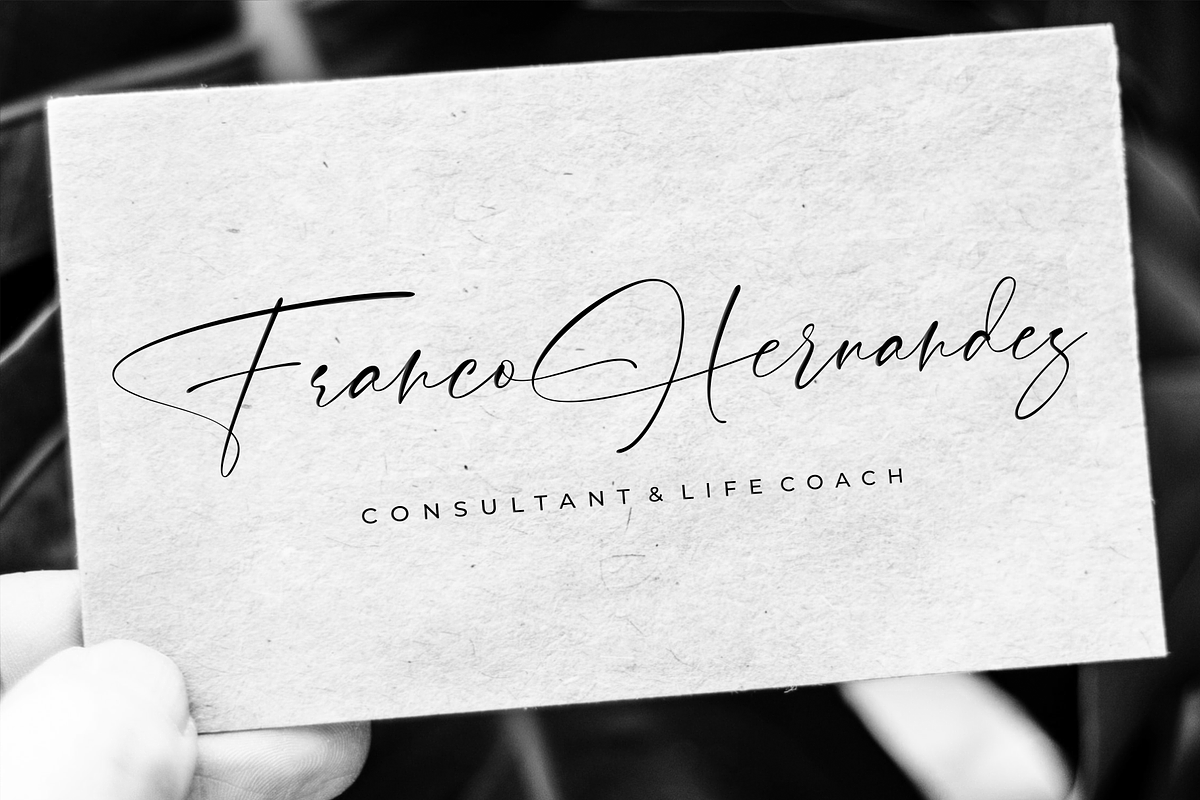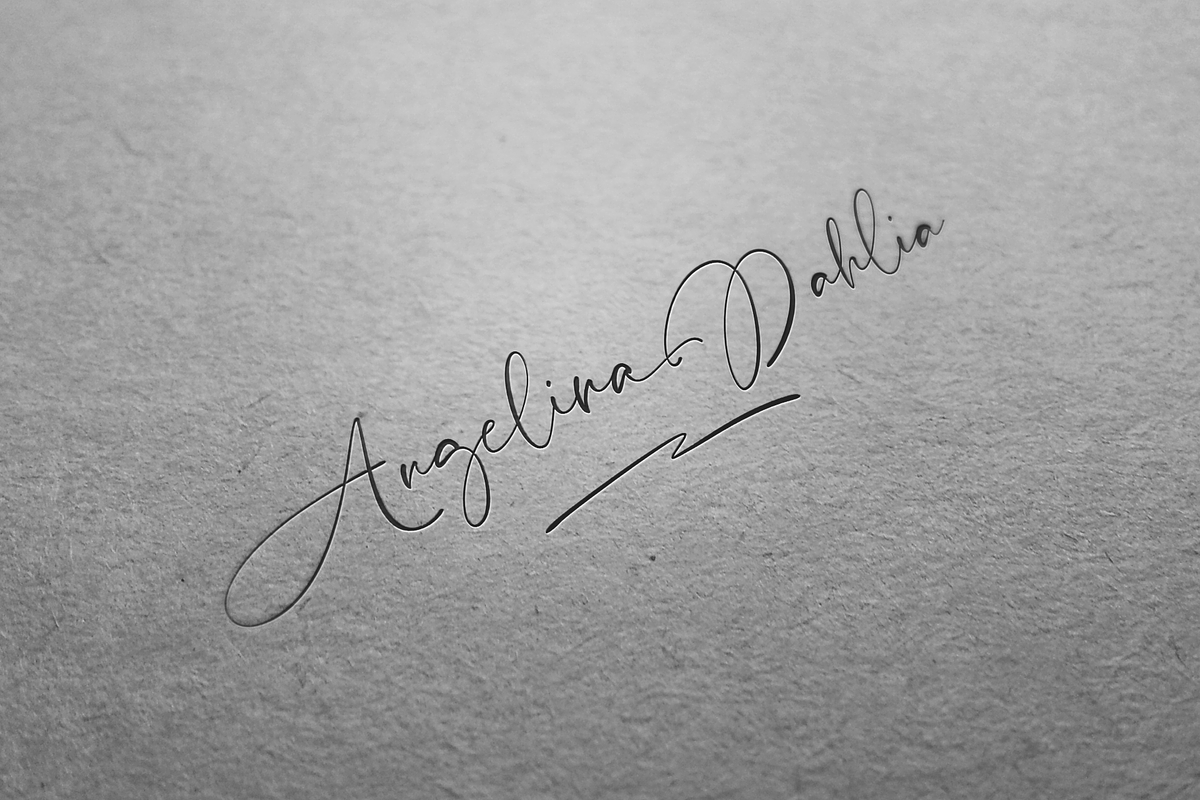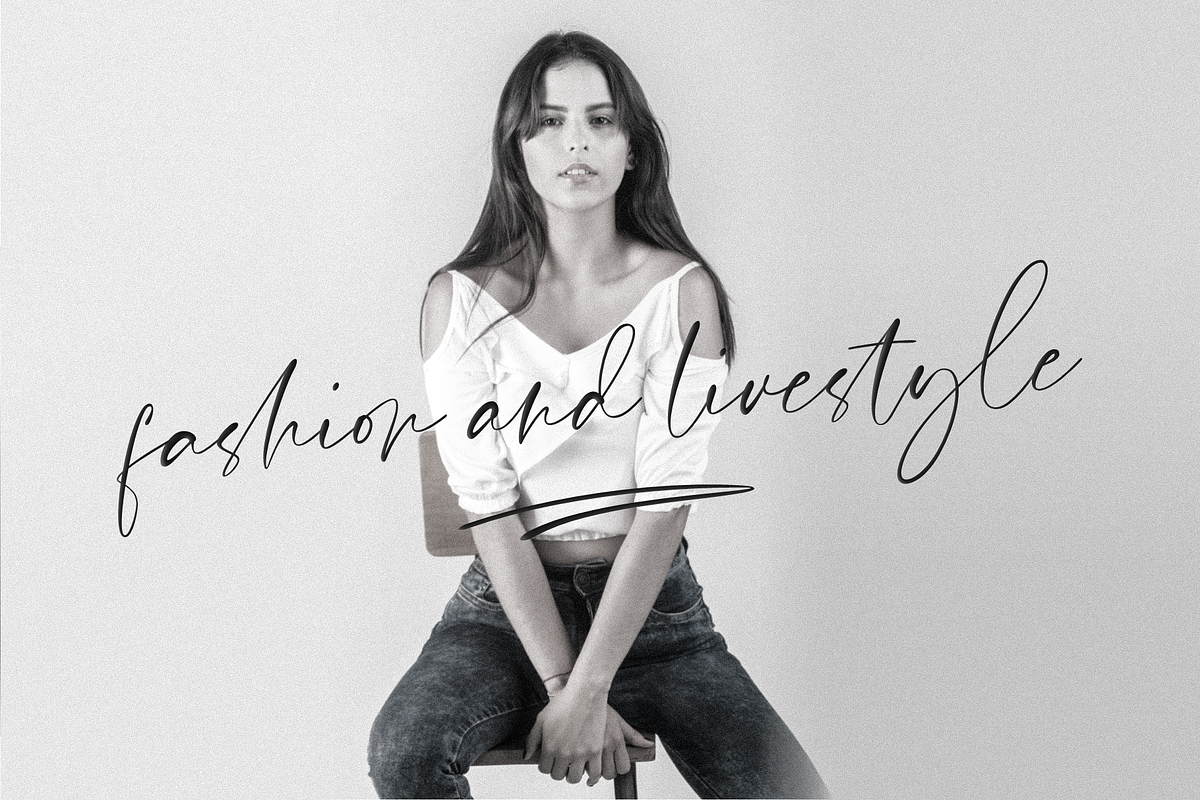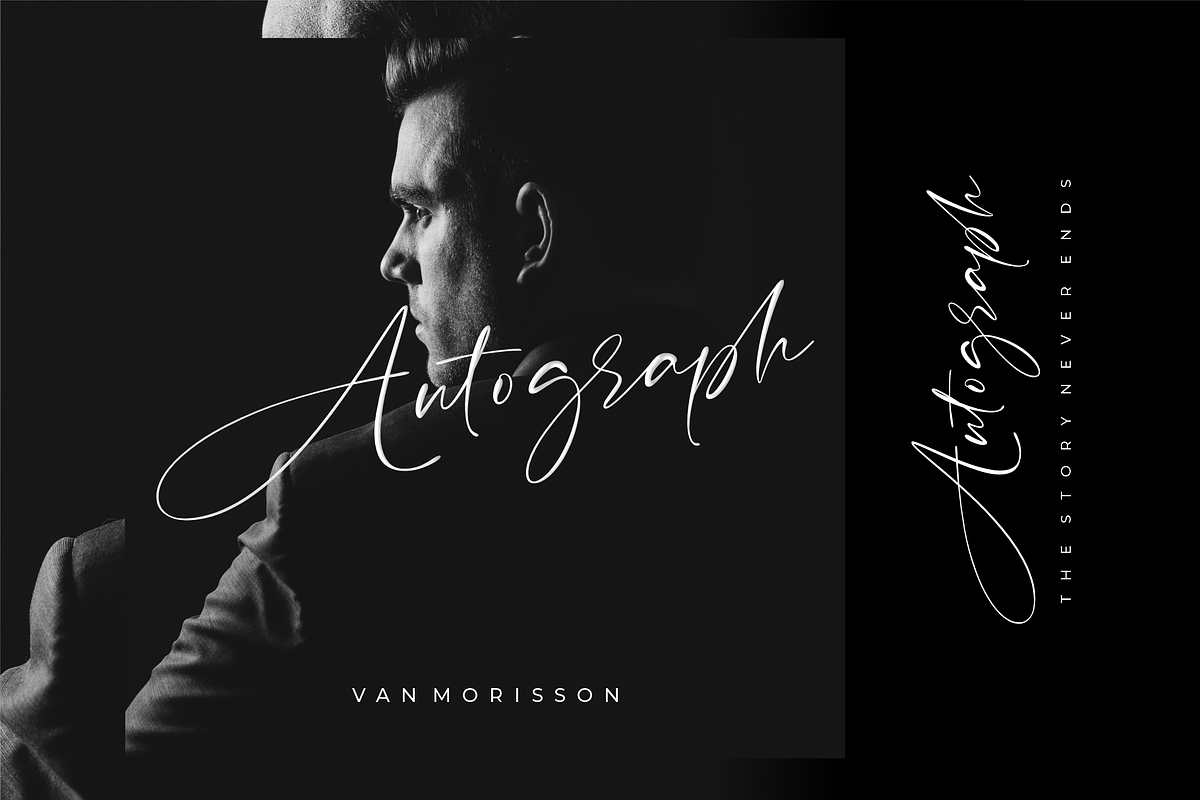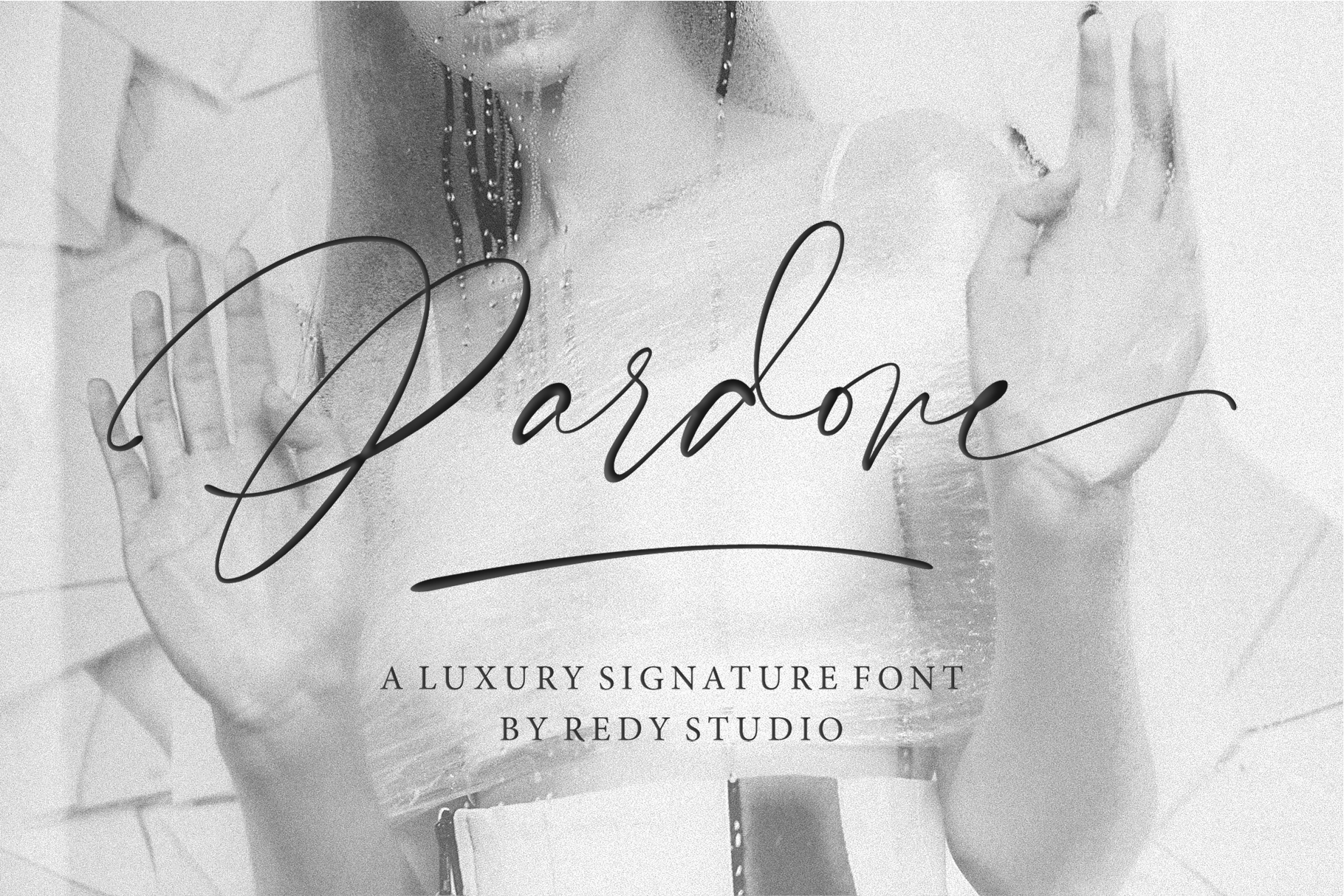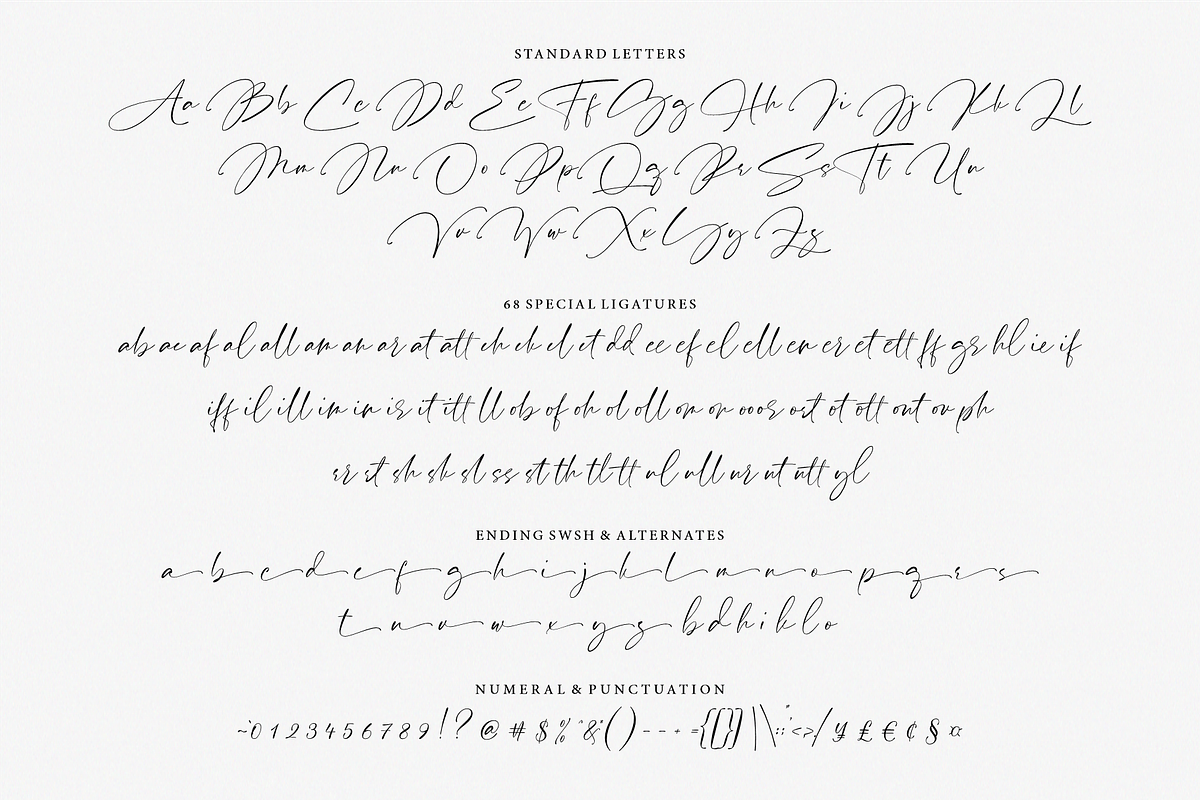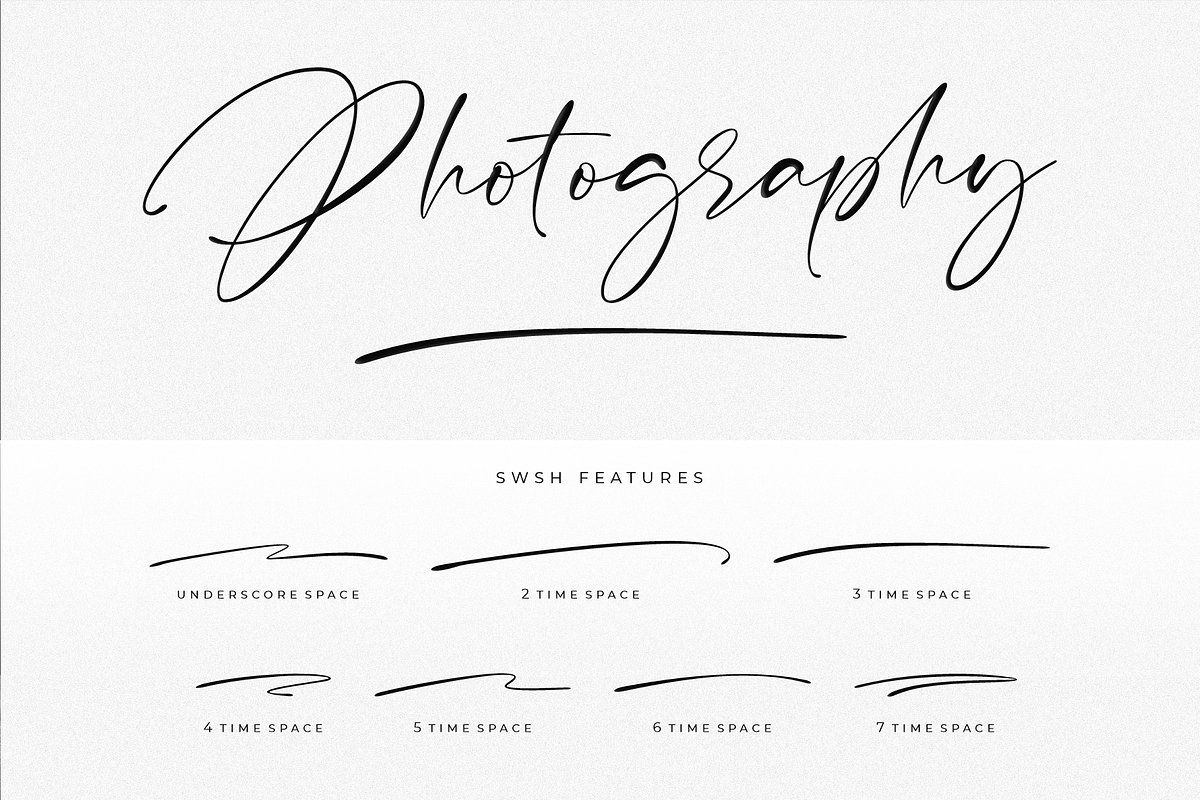
Pardone | Luxury Signature Font
Introducing Pardone – A new signature font with a natural and luxury feel that works best for signature logos. Pardone is a premium and elegant font that features a natural rhythm and looks great in any type of design. Pardone includes full set of gorgeous uppercase and lowercase letters, numerals, a large range of punctuation, 68 ligatures, and alternates. Every single letter has been carefully crafted to make your text looks unique, this typeface is designed to look a perfect fit for signatures, branding, logos, and pretty much anything with Pardone.
Pardone features:
- A full set of upper & lowercase characters
- 68 Gorgeous ligatures
- Lowercase alternates
- Lowercase ending swashes